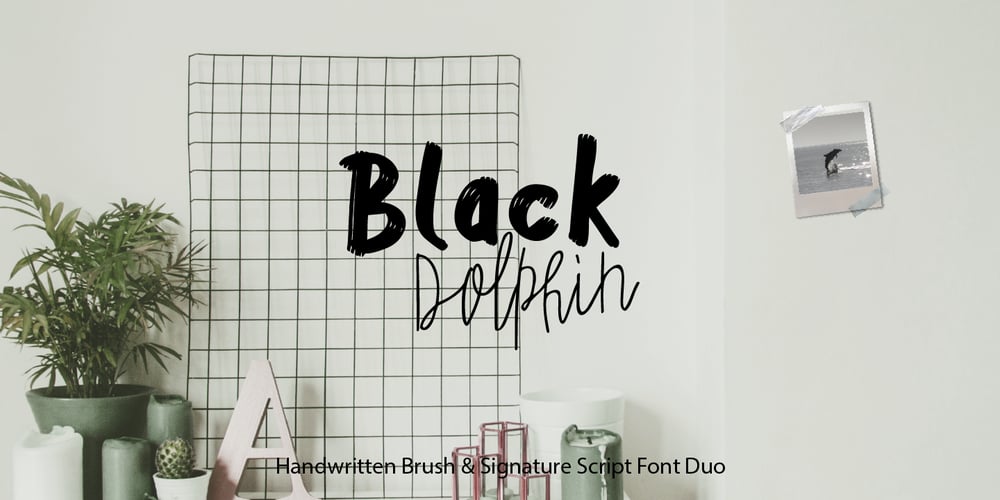
Black Dolphin
Black Dolphin font
Black Dolphin Font Family was designed by Hleb Zhyhunou and published by Mr. Typeman. Black Dolphin contains 2 styles and family package options. Introducing the new and tasteful Black Dolphin Multilingual Font Duo. Black Dolphin is a stunning pair of luxury signature script and a hand-drawn brush font, designed to contrast and complement each other with elegant beauty and contemporary style, making it an excellent fit for projects of all types.